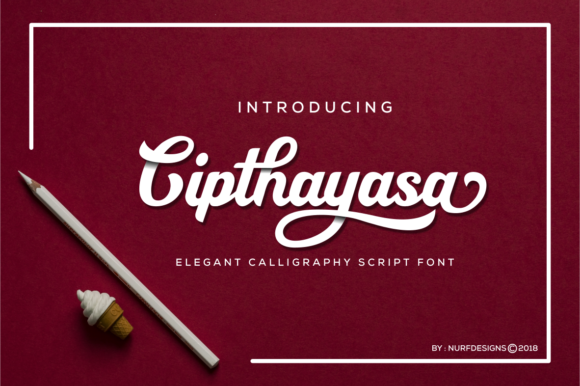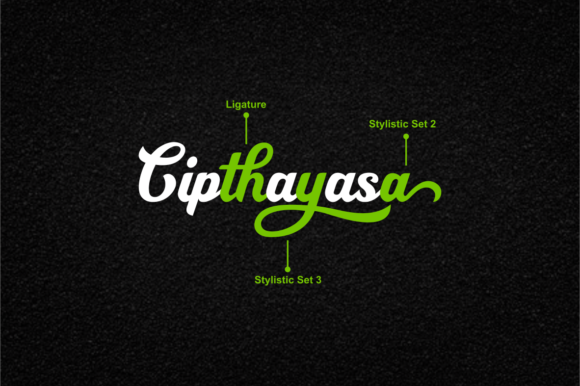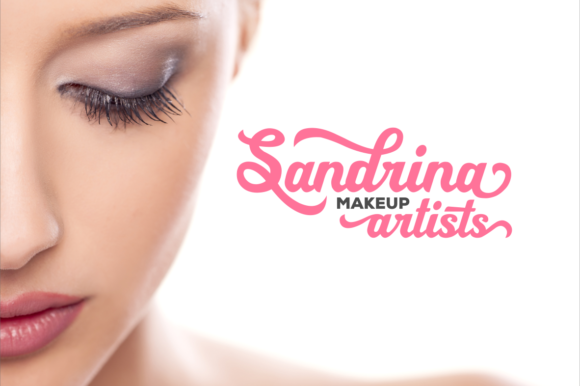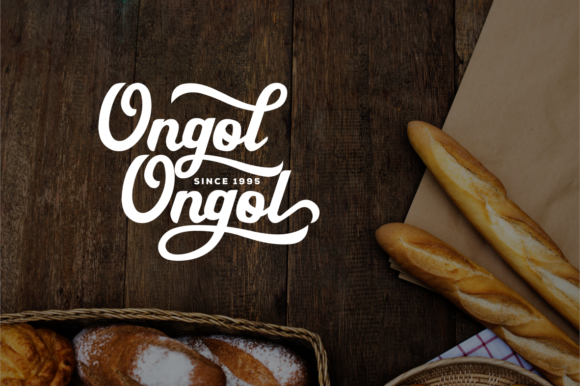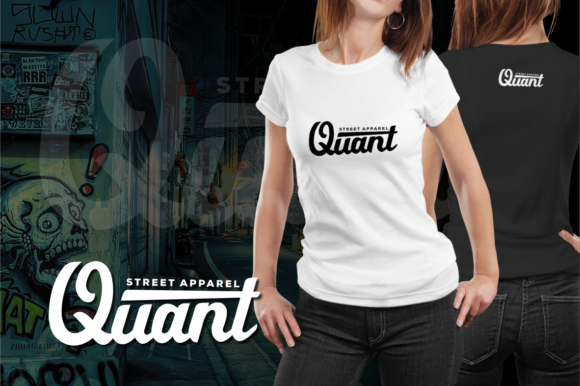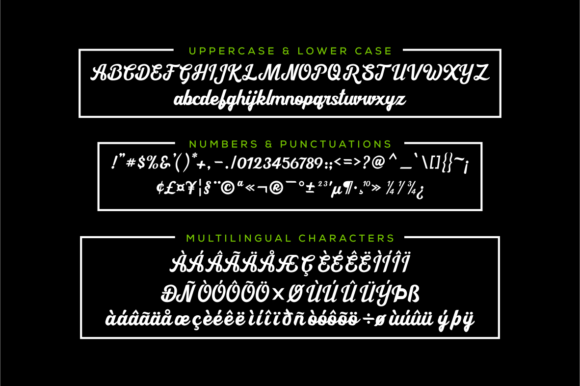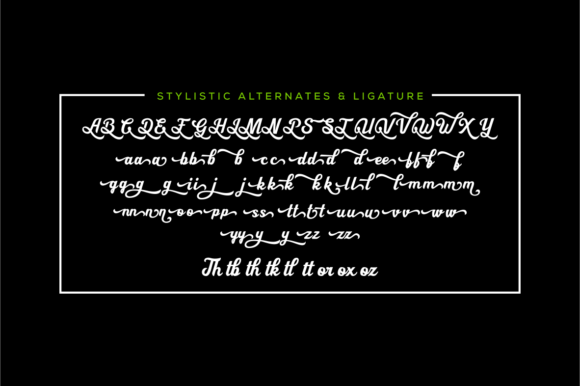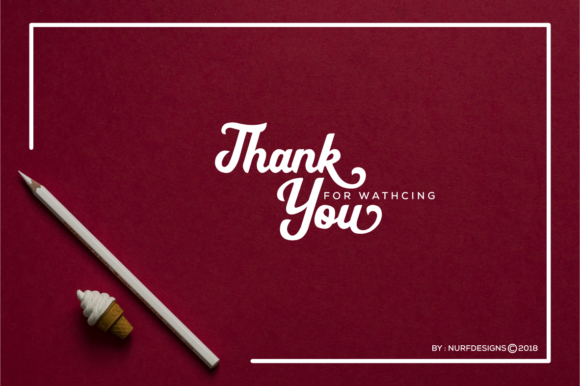
Cipthayasa Font
About Cipthayasa Font
The Cipthayasa is an elegant calligraphy script. It can be used for logos, headers, t-shirts, quotes, and every other design which needs a striking, yet friendly typeface.